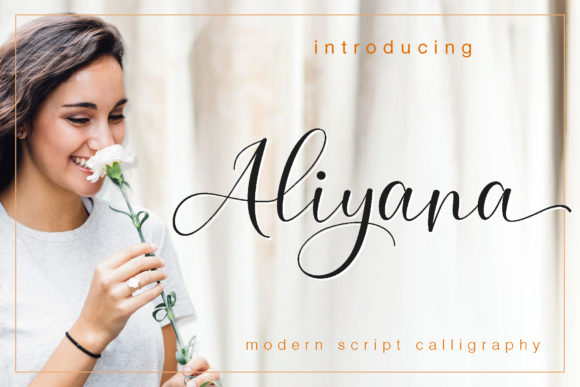
Welcome to the world of Aliyana Script Font, a handcrafted masterpiece that embodies elegance and sophistication. Step into a realm where your designs will radiate an air of exclusivity and charm. Aliyana Script Font is not just a font; it's an art form that will transform your creative visions into captivating realities.
**Unleash Your Creativity with Aliyana Script Font**
Immerse yourself in the beauty of Aliyana Script Font, a script font that dances across your designs with grace and fluidity. Its meticulously crafted characters exude an upscale and chic aura, elevating your projects to new heights of refinement. Whether you're a seasoned designer or a passionate hobbyist, Aliyana Script Font will empower you to create stunning works of art that leave a lasting impression.
**Experience the Elegance of Aliyana Script Font**
With its delicate curves and flowing lines, Aliyana Script Font adds an undeniable touch of sophistication to any project. Its carefully designed glyphs evoke a sense of luxury and refinement, making it the perfect choice for branding, wedding invitations, and high-end marketing materials. Let Aliyana Script Font elevate your designs and captivate your audience with its timeless beauty.
**Immerse Yourself in the World of Aliyana Script Font**
Aliyana Script Font is more than just a font; it's an invitation to express your creativity in a bold and captivating way. Unleash your imagination and let Aliyana Script Font guide you as you create designs that speak to the heart. Its versatility knows no bounds, allowing you to explore a wide range of styles and themes. From elegant wedding invitations to modern branding materials, Aliyana Script Font will transform your ideas into unforgettable creations.
**Embrace the Allure of Aliyana Script Font**
Indulge in the allure of Aliyana Script Font, a font that will leave you spellbound. Its captivating curves and charming characters possess an irresistible magnetism, drawing your audience in and leaving them captivated. Prepare to be mesmerized as Aliyana Script Font takes your designs to new heights of beauty and sophistication.
**Aliyana Script Font: The Epitome of Elegance**
In the realm of fonts, Aliyana Script Font stands as a beacon of elegance, illuminating your designs with its refined charm. Its exceptional quality and stunning aesthetics make it the ultimate choice for those who seek to make a lasting impression. Discover the transformative power of Aliyana Script Font and elevate your designs to the realm of excellence.